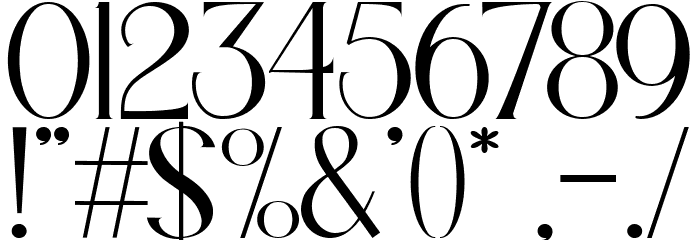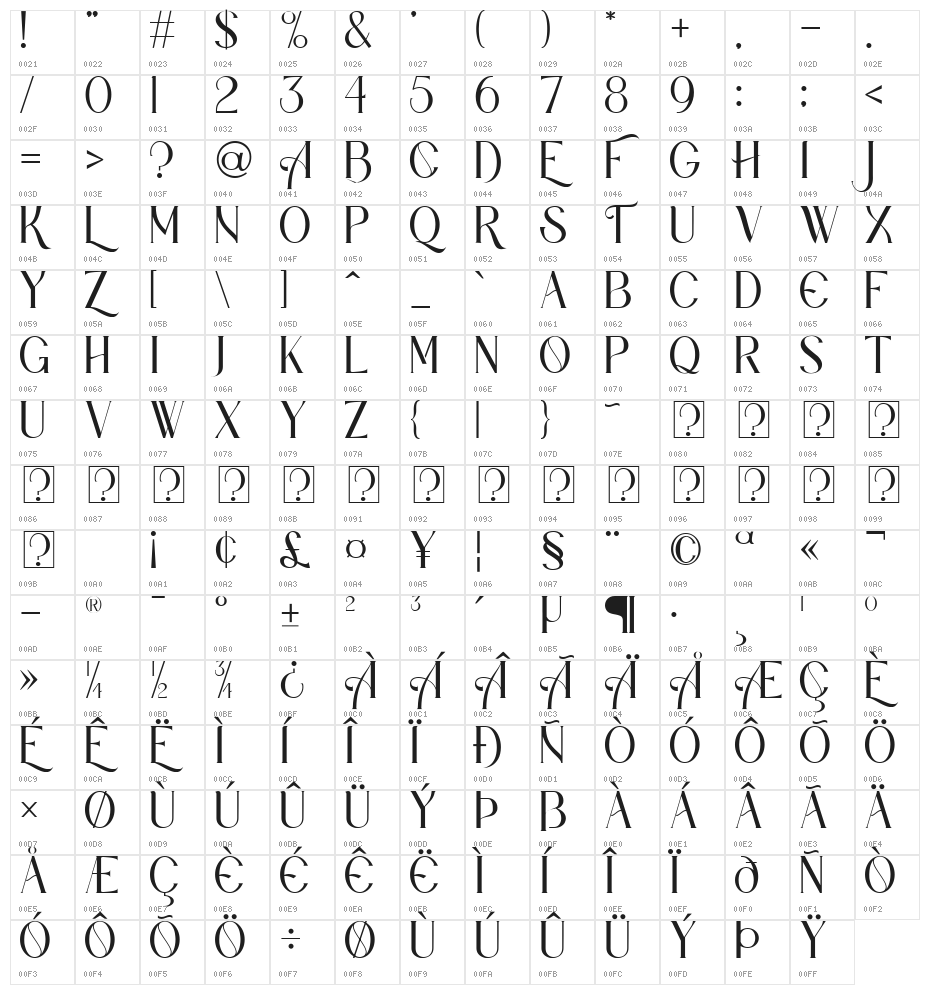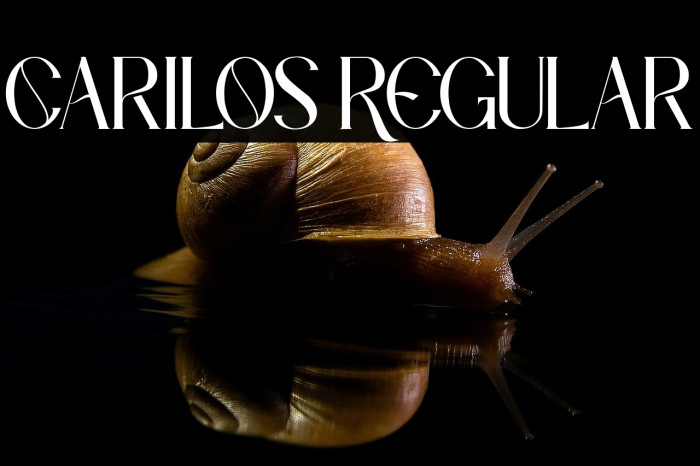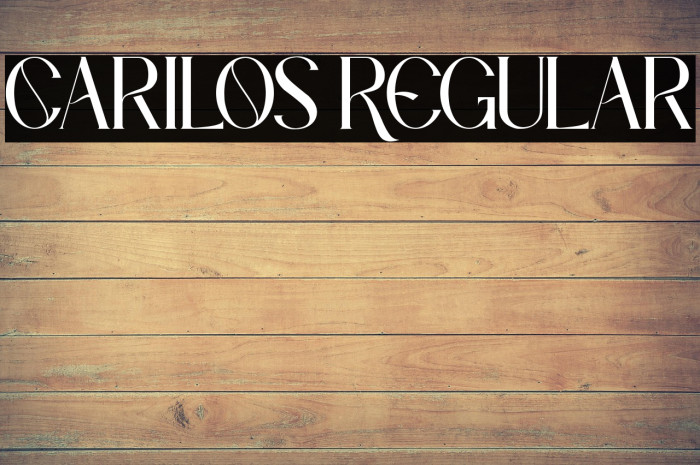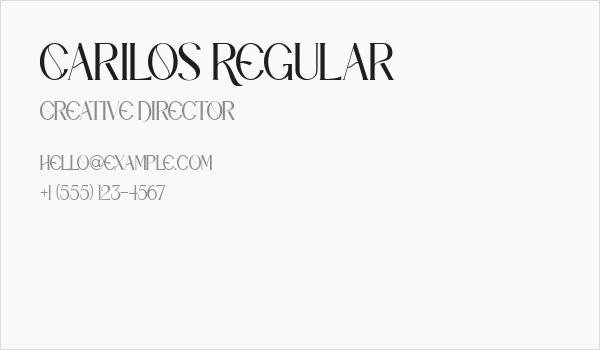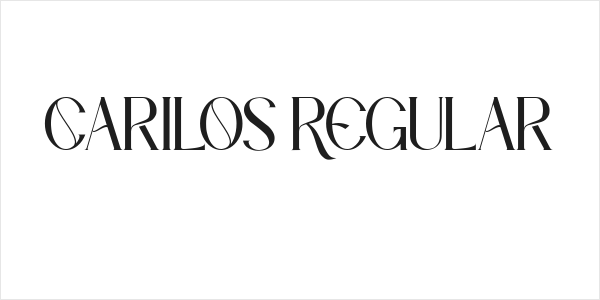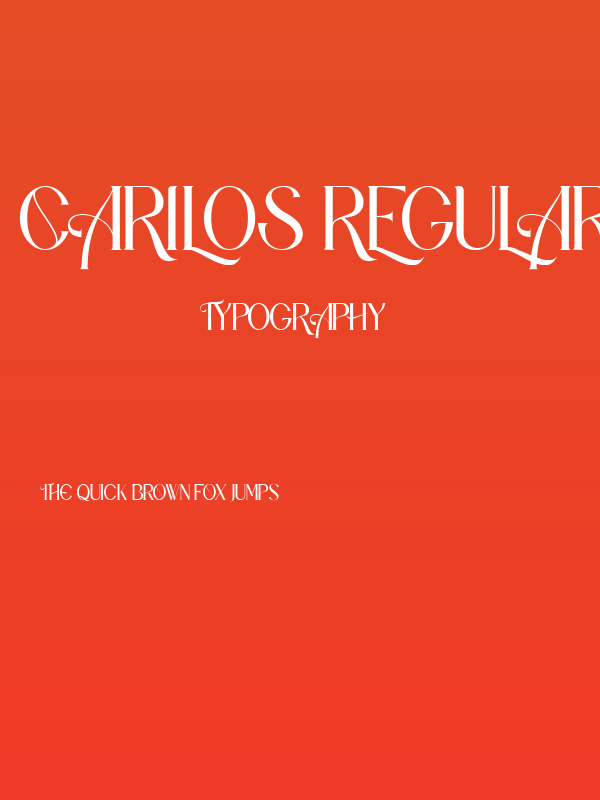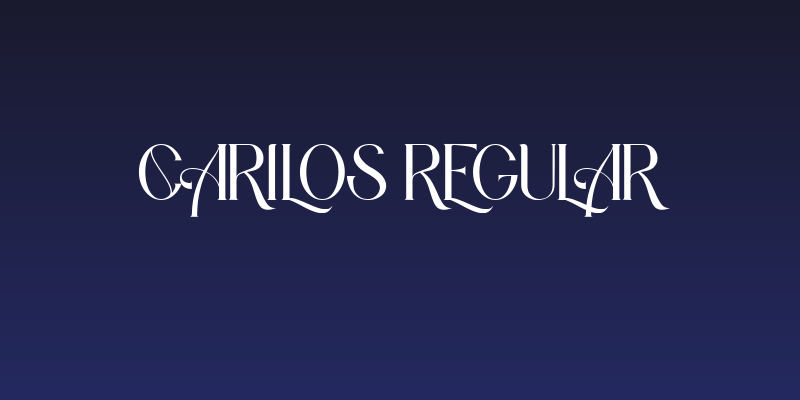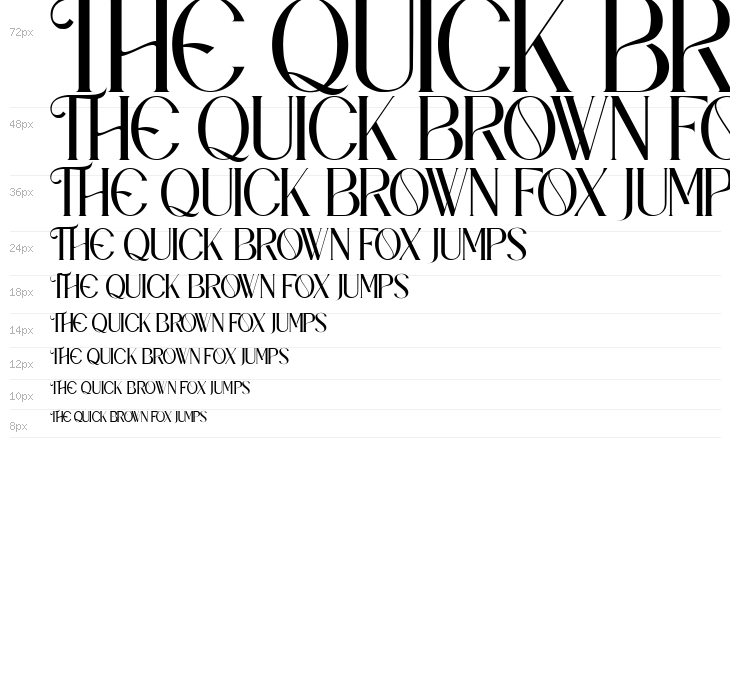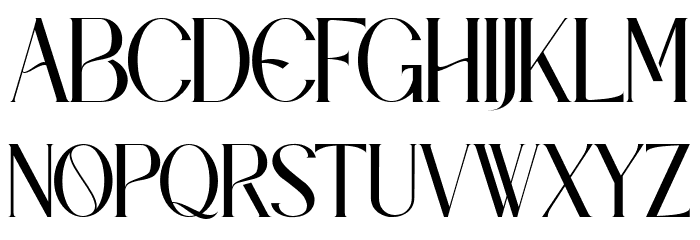
Carilos Regular Font
Carilos Regular Description
This font features a unique blend of elegance and modernity, characterized by its tall, slender letterforms and subtle curves. The uppercase letters exhibit a sophisticated flair with distinct serifs and occasional swashes, adding a decorative touch. The lowercase letters maintain a consistent style, complementing the uppercase with their clean lines and balanced proportions. Numbers and special characters follow the same design principles, ensuring uniformity across all glyphs. The font's overall aesthetic is both stylish and versatile, making it suitable for a variety of design applications.